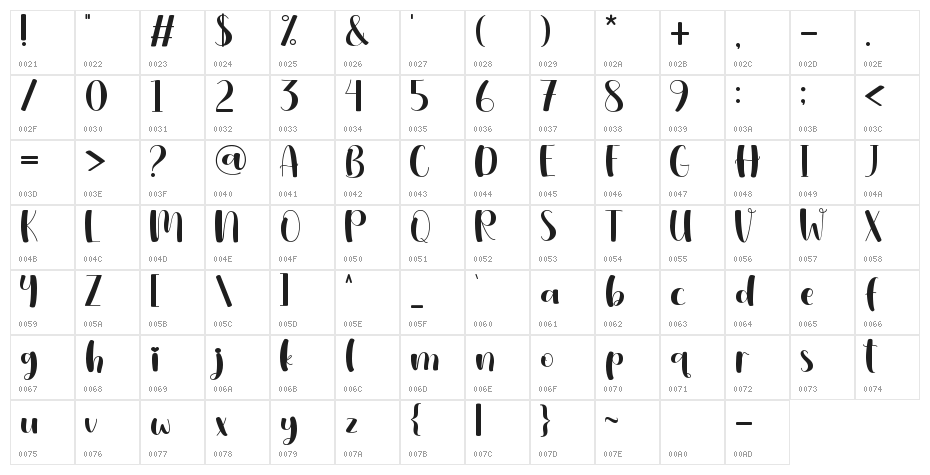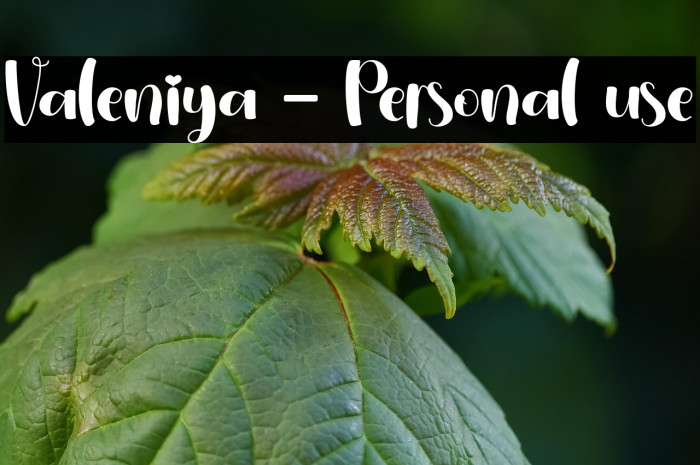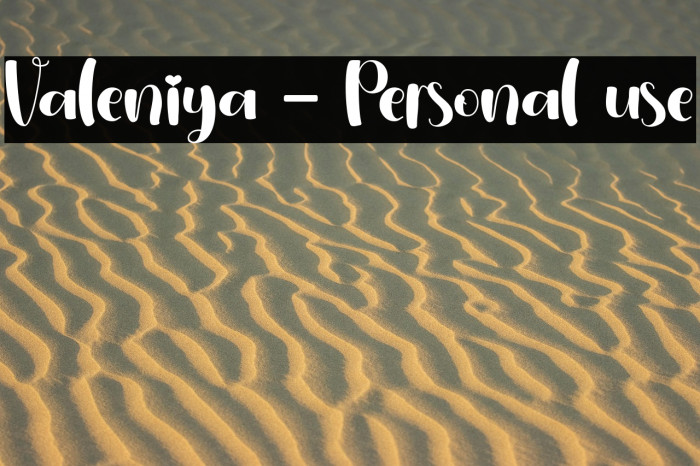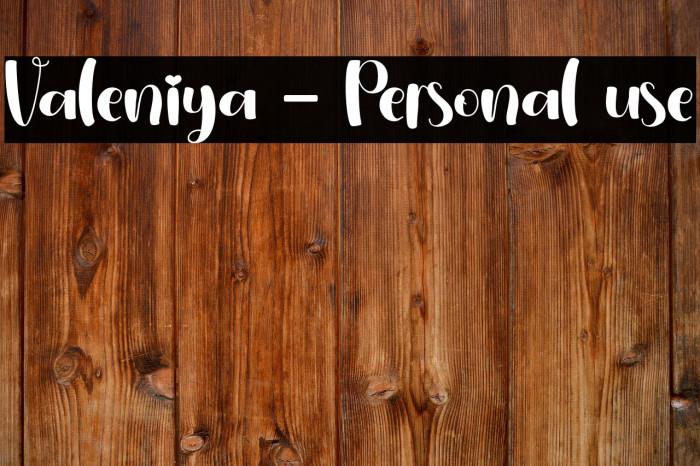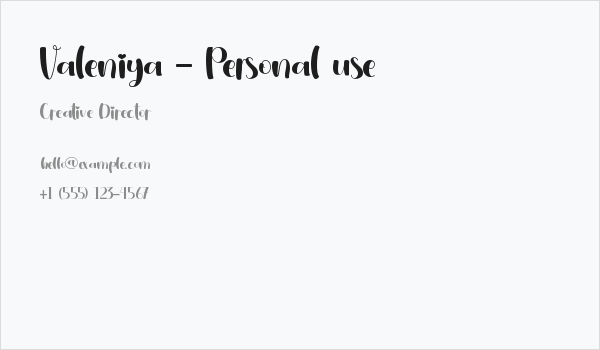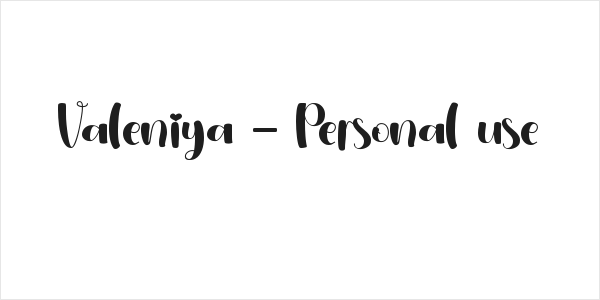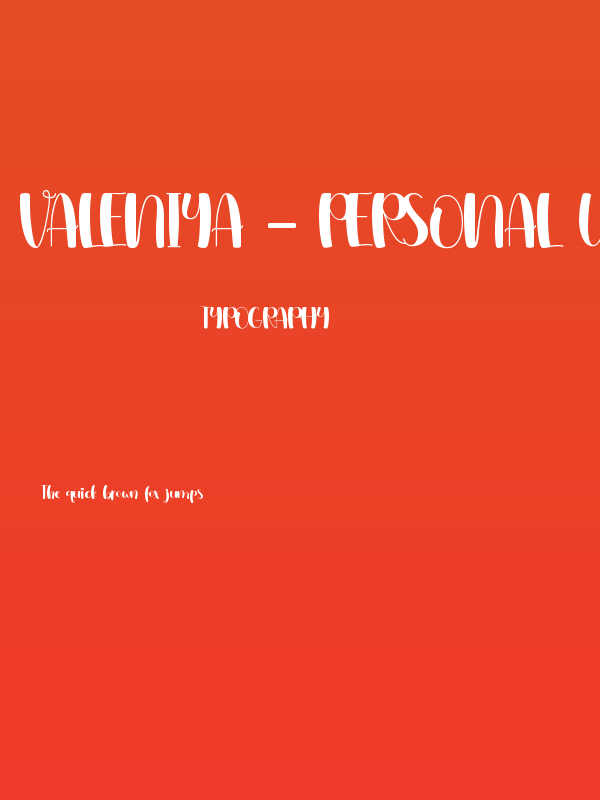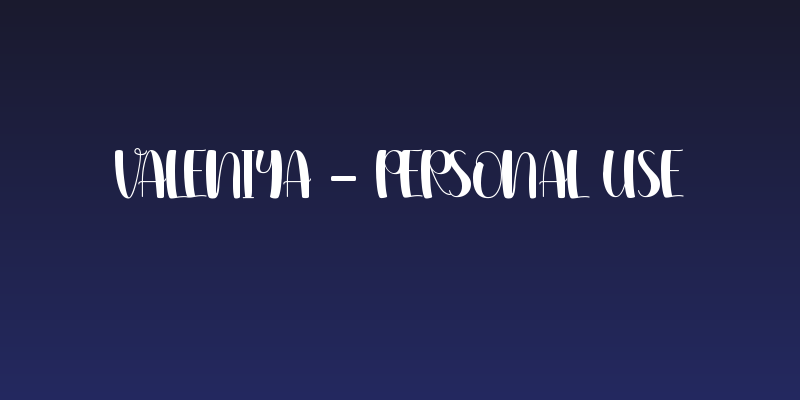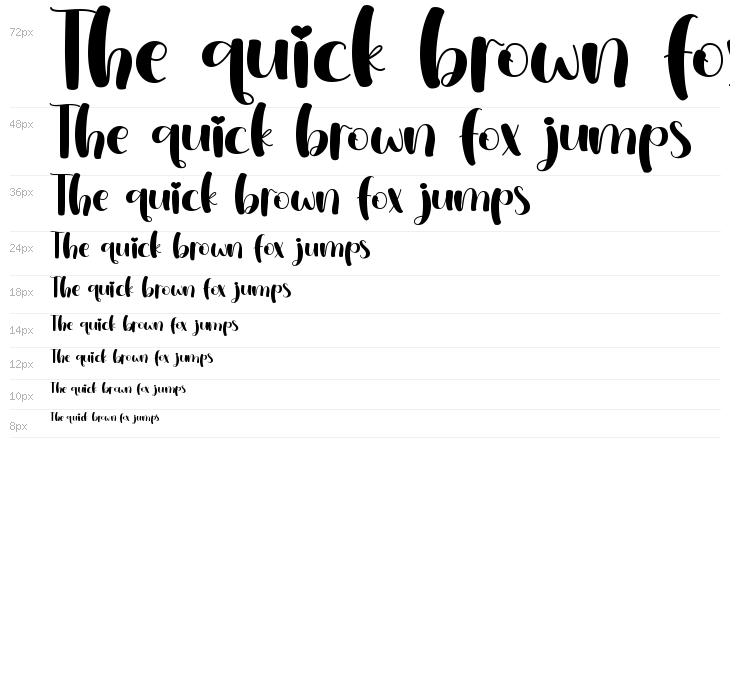
Valeniya - Personal use Font
Valeniya - Personal use Description
This font features a playful and whimsical style with a handwritten touch. The letters are characterized by their flowing, cursive-like forms, with varying stroke widths that add a dynamic and lively feel. The uppercase letters are tall and elegant, while the lowercase letters maintain a consistent, rounded appearance. The numerals are bold and slightly exaggerated, complementing the overall aesthetic. Special characters are creatively designed, adding to the font's unique charm. This font is perfect for projects that require a personal, artistic touch.
Use CaseLogos, Headlines, Creative projects
Proposed ProjectsIdeal for greeting cards, invitations, personal branding, and creative projects that require a personal touch.